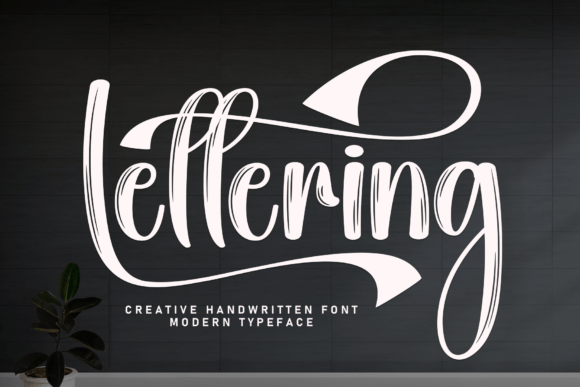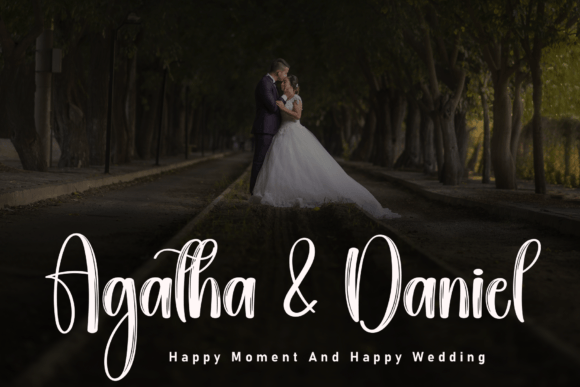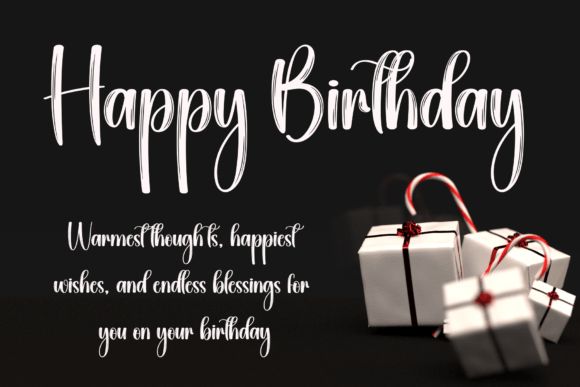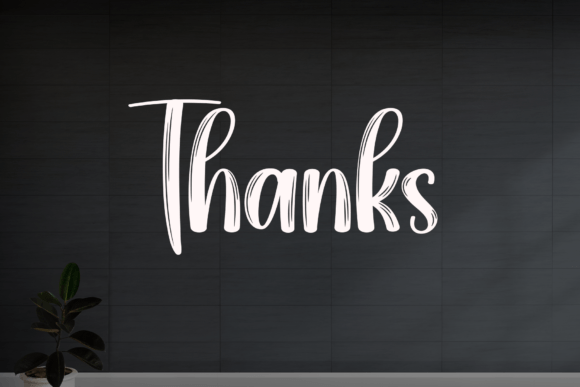
Lettering Font
Lettering is a gorgeous and bold handwritten font, crafted to give your headlines and logotype projects a stylish touch. This font reads as strong, confident, and dynamic and can add tons of nostalgic character to your designs.